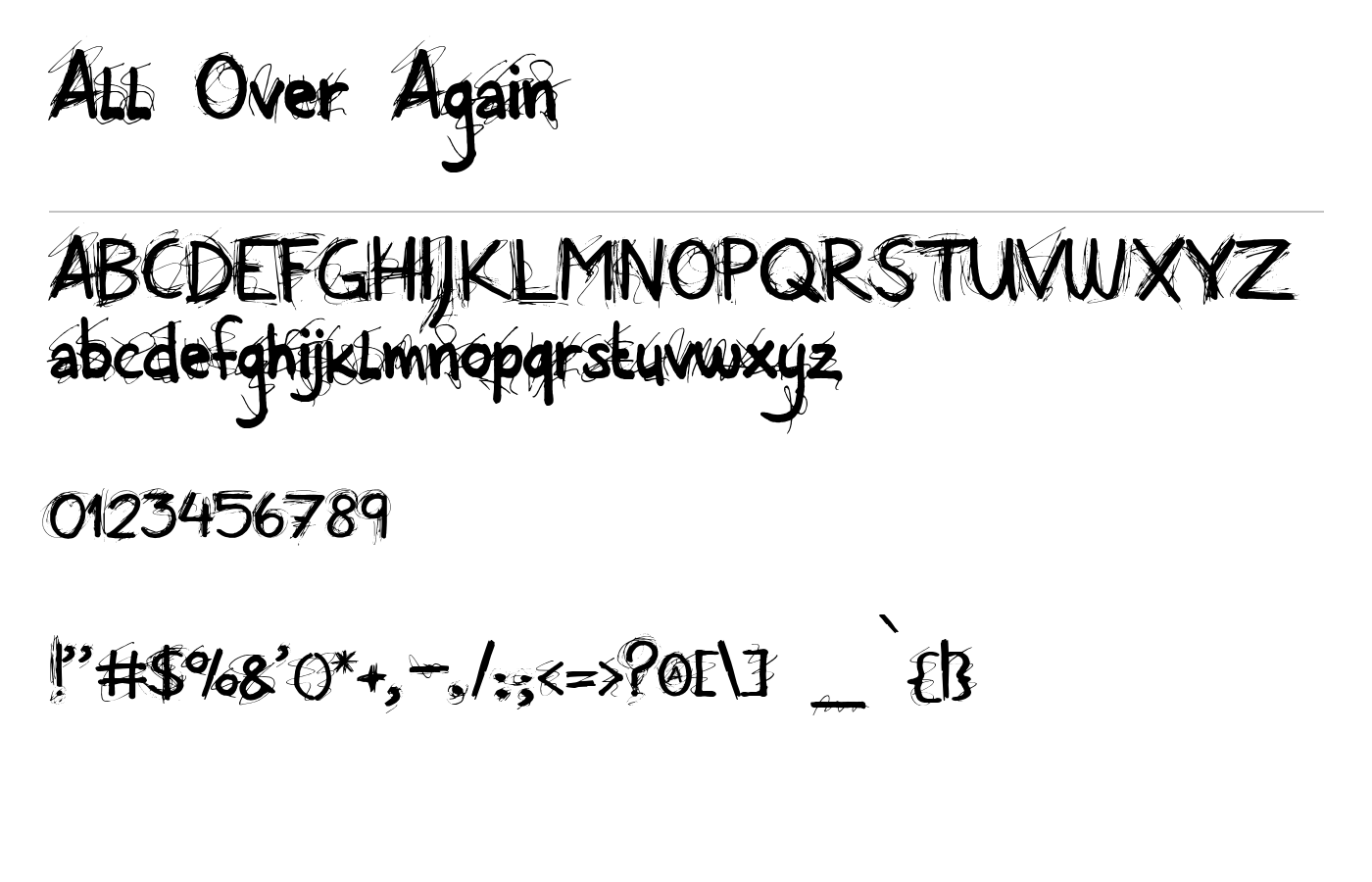
All Over Again is a bold, playful handwritten font with a scribbled, textured style that feels energetic and raw. Its irregular strokes and imperfect letterforms give it a lively, informal character perfect for creative projects, edgy branding, and expressive headlines. This font works well where a spontaneous, artistic vibe is desired, adding personality and a handcrafted touch to designs.
All Over Again Font
About All Over Again Font